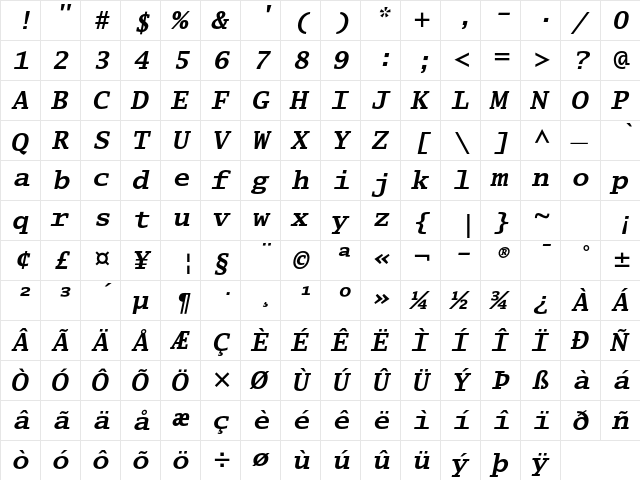
Lucida Typewriter Std Bold Oblique Font Preview
| Designer | Charles Bigelow, Kris Holmes |
Design Context for Lucida Typewriter Std Typeface
Lucida Typewriter Std uses fixed-width spacing throughout, giving it the structured, systematic character associated with coding environments and technical documentation. The slanted form adds forward momentum and visual energy. The heavy weight commands attention and anchors typographic hierarchies.
Pro Tip: Use Lucida Typewriter Std with slightly increased line-height for extended reading — fixed-width spacing can feel dense in longer passages without extra breathing room.